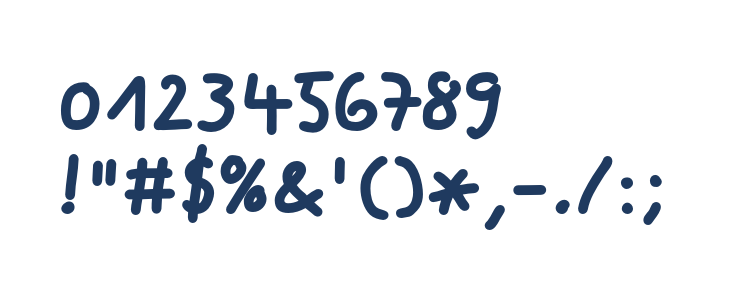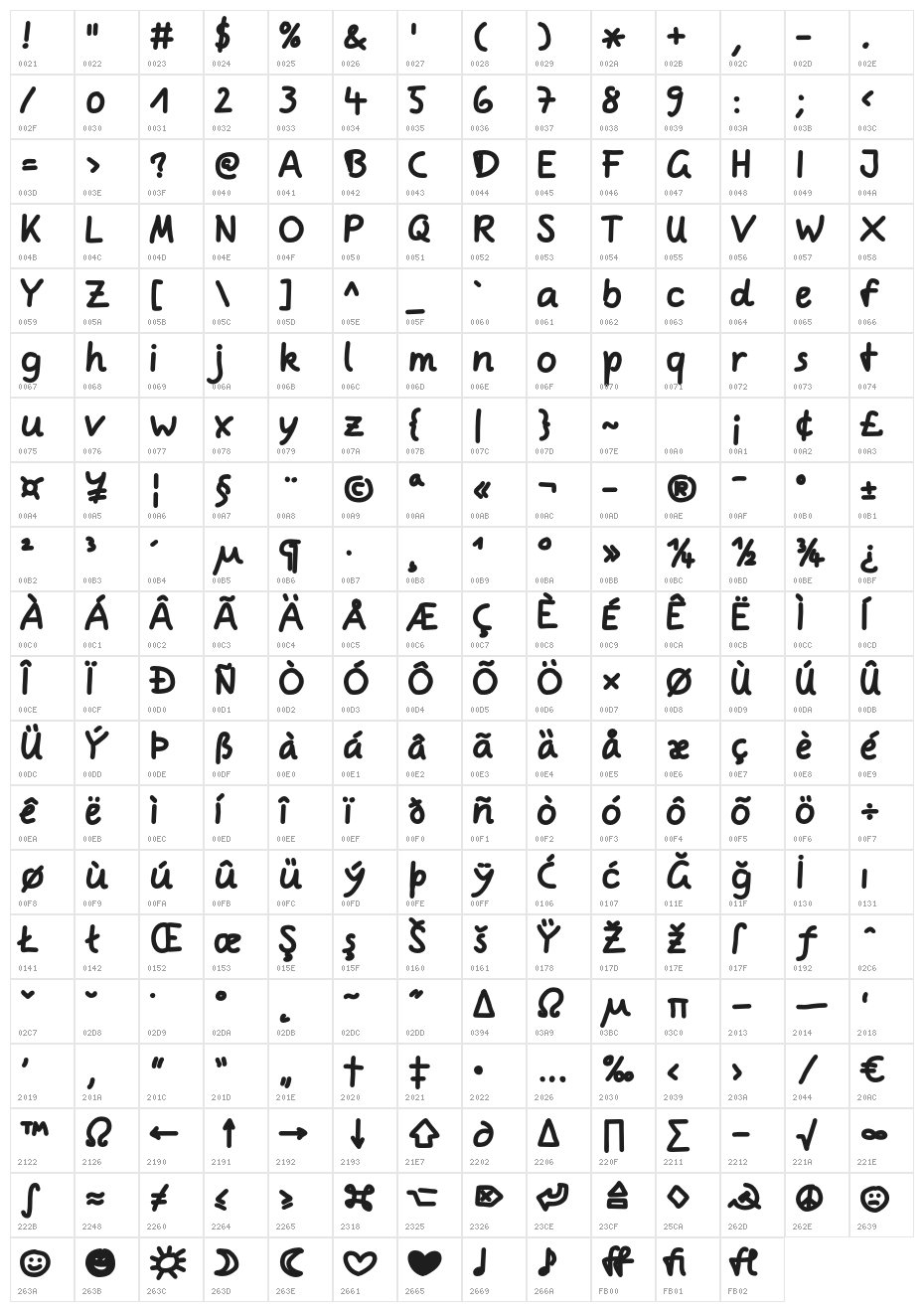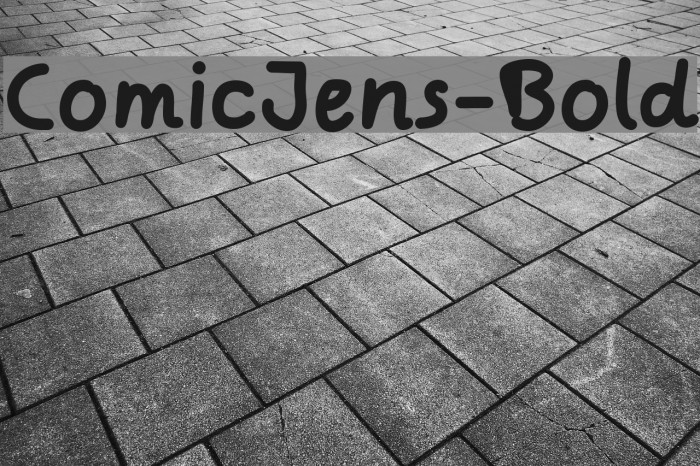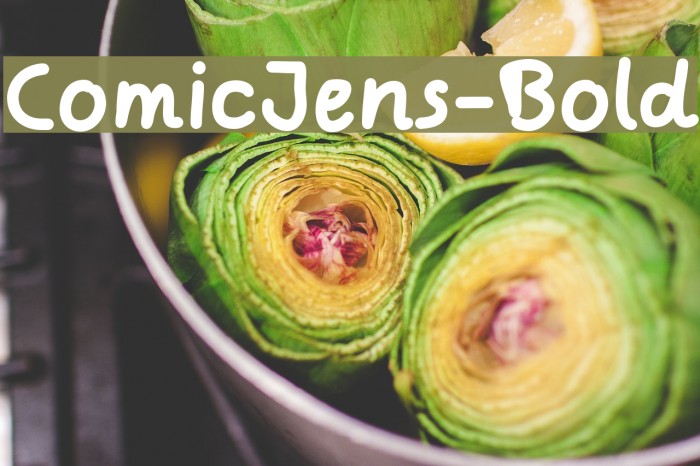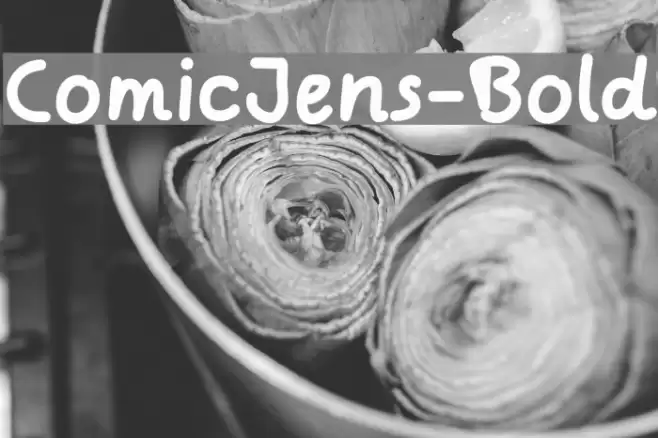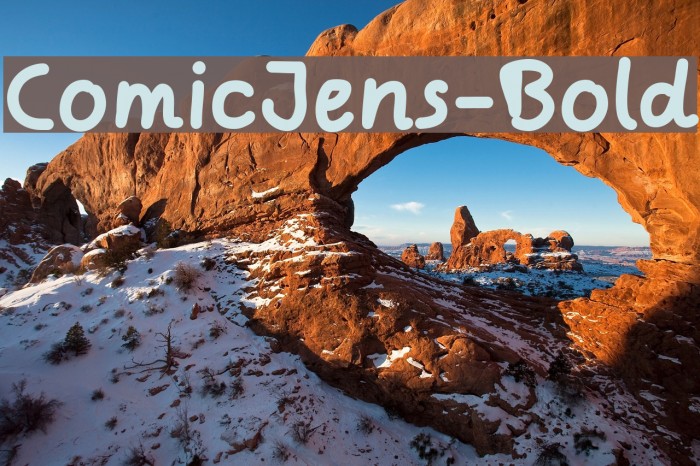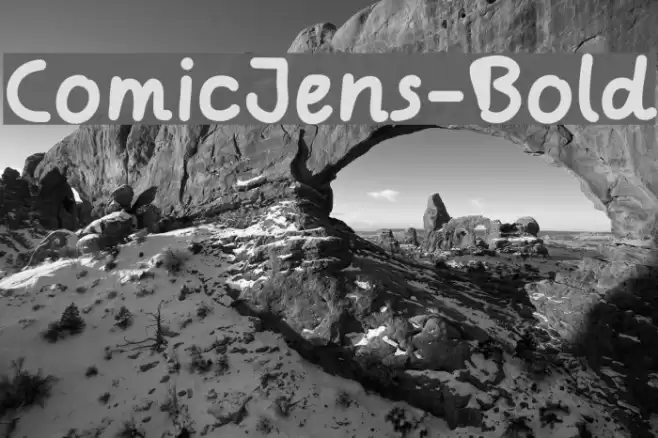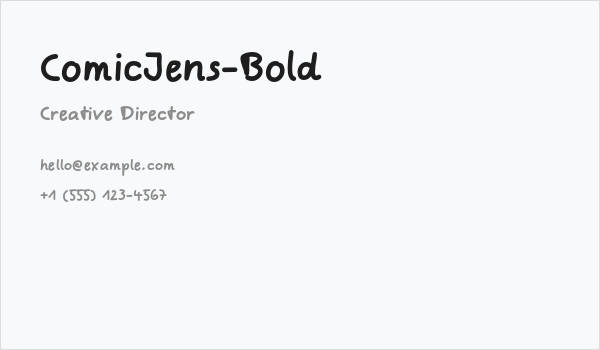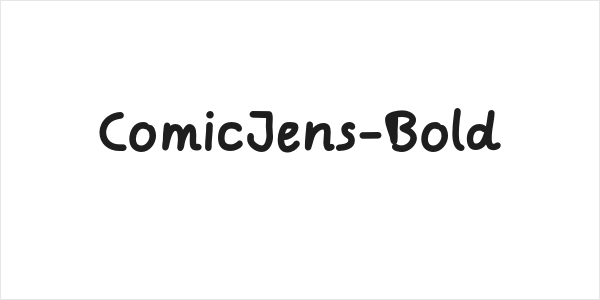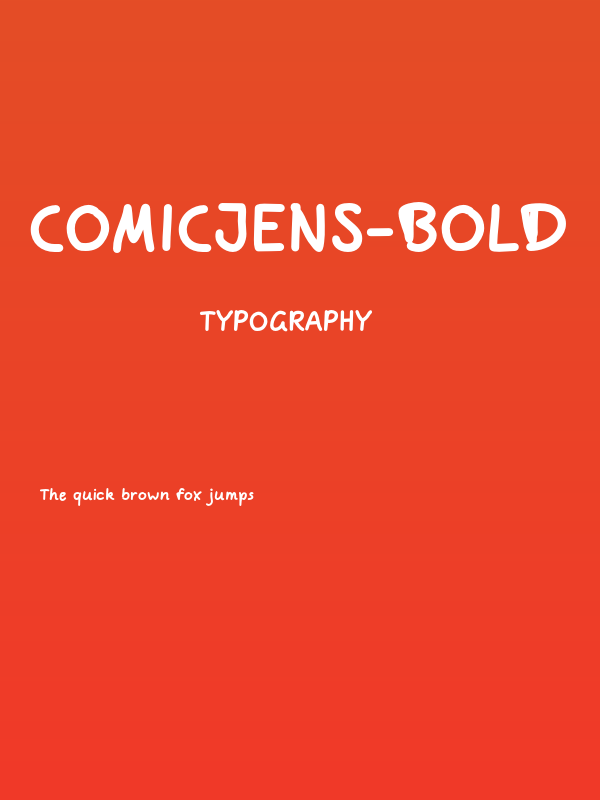
ComicJens-Bold Font
ComicJens-Bold Description
This playful and bold font features a handwritten style that exudes a casual and friendly vibe. The letters are rounded and slightly irregular, giving them a whimsical and approachable appearance. The strokes are thick and consistent, providing a strong visual presence. This font is perfect for projects that require a fun and informal touch, such as children's books, comic strips, or playful branding. Its boldness ensures readability while maintaining a lighthearted tone.
| Proposed Projects | Ideal for children's books, comic strips, playful branding, and informal invitations. |